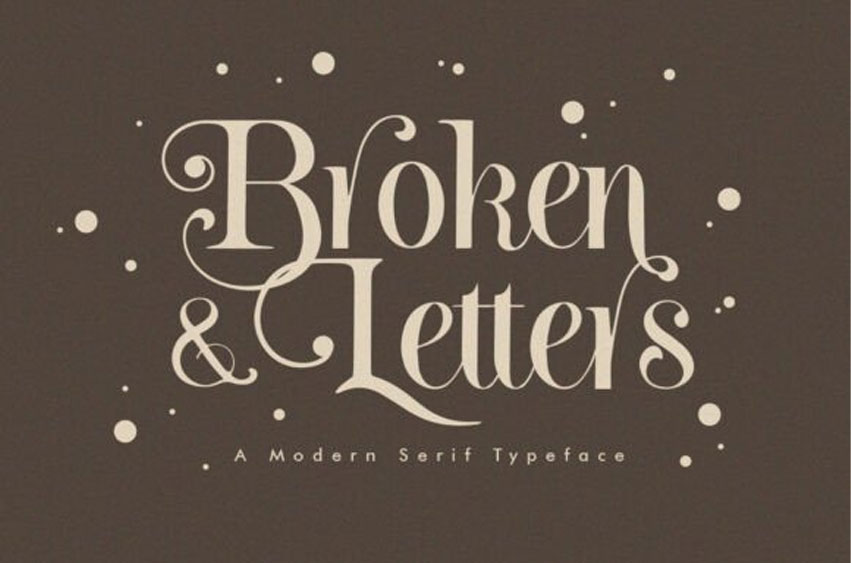
Broken Letters Font
Broken Letters Font is a modern serif font with a stylish and edgy look. It combines classic serif features with unique, sharp edges and broken lines, giving it a bold and creative feel.
This font works well for logos, posters, or any design where you want to stand out with a modern twist.